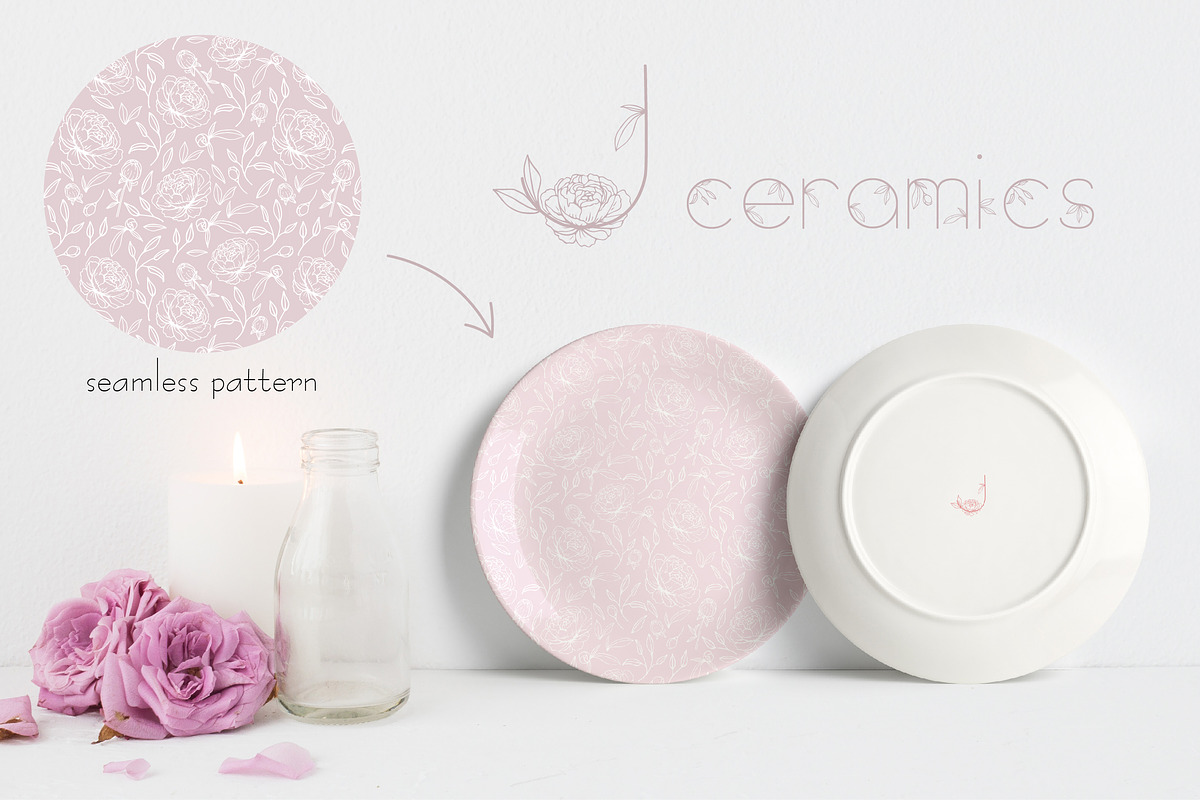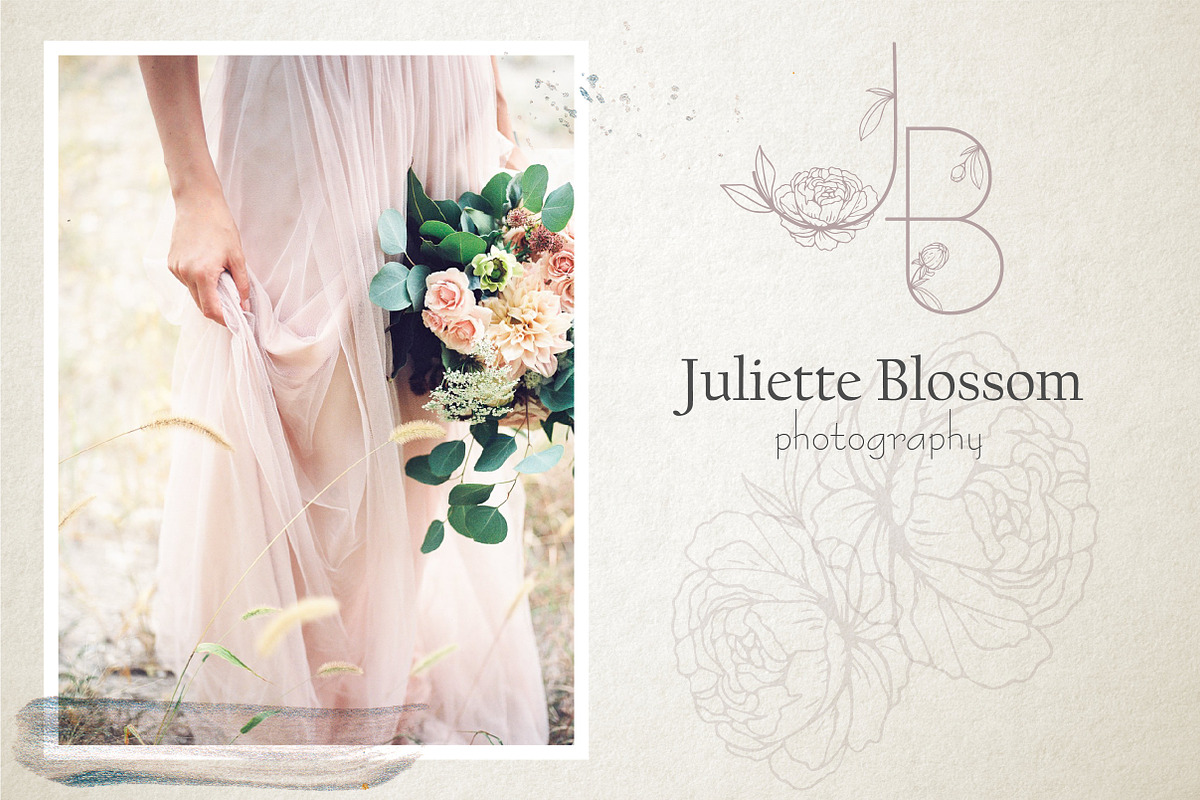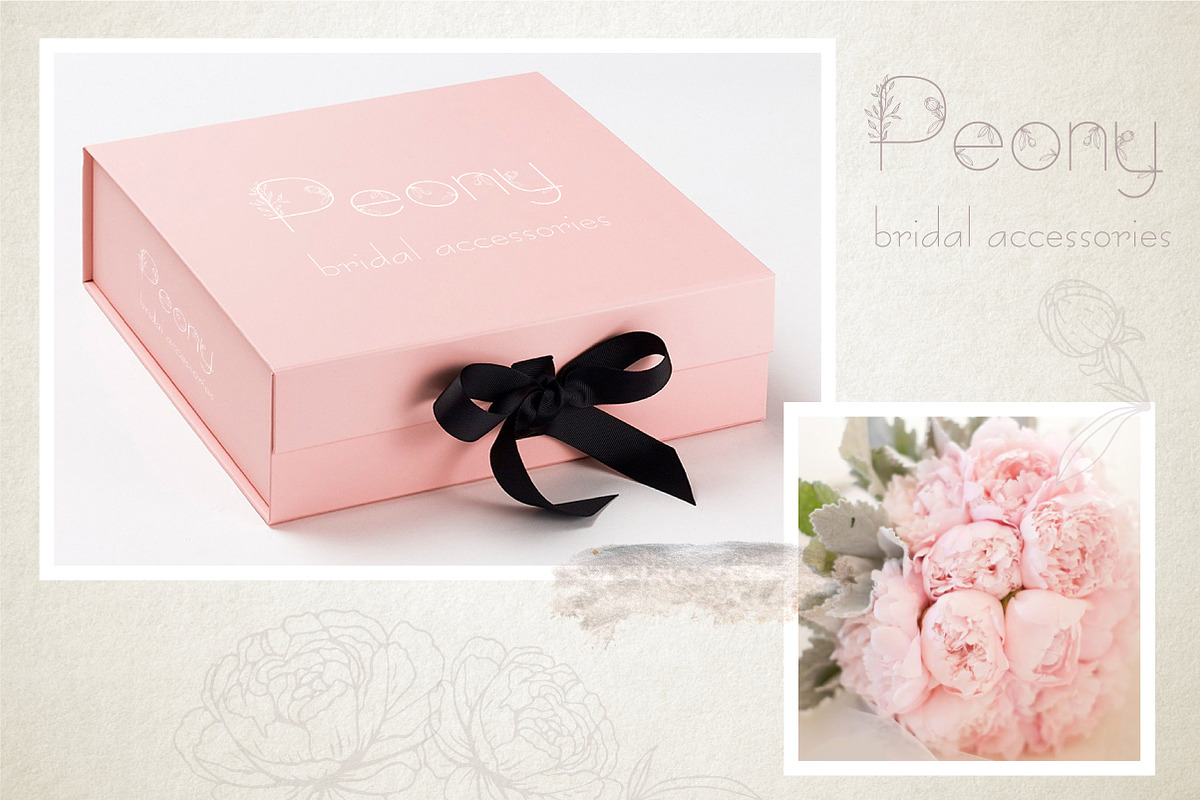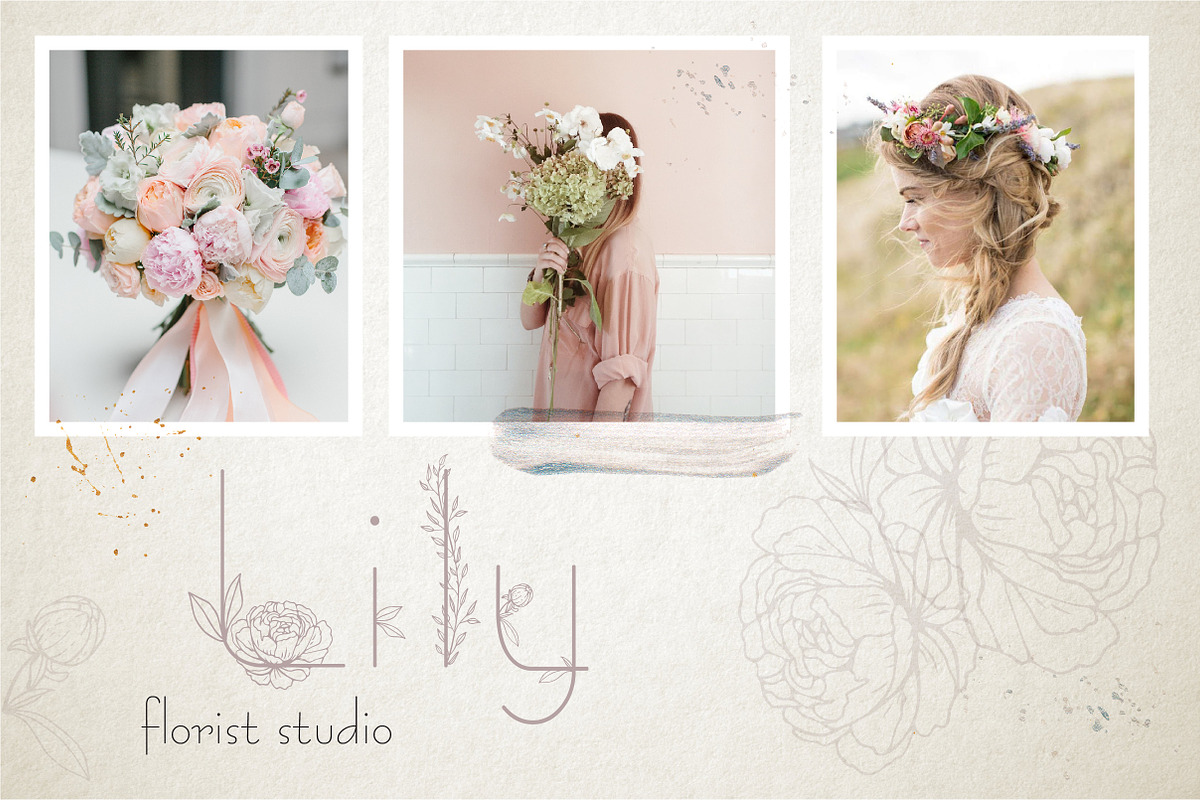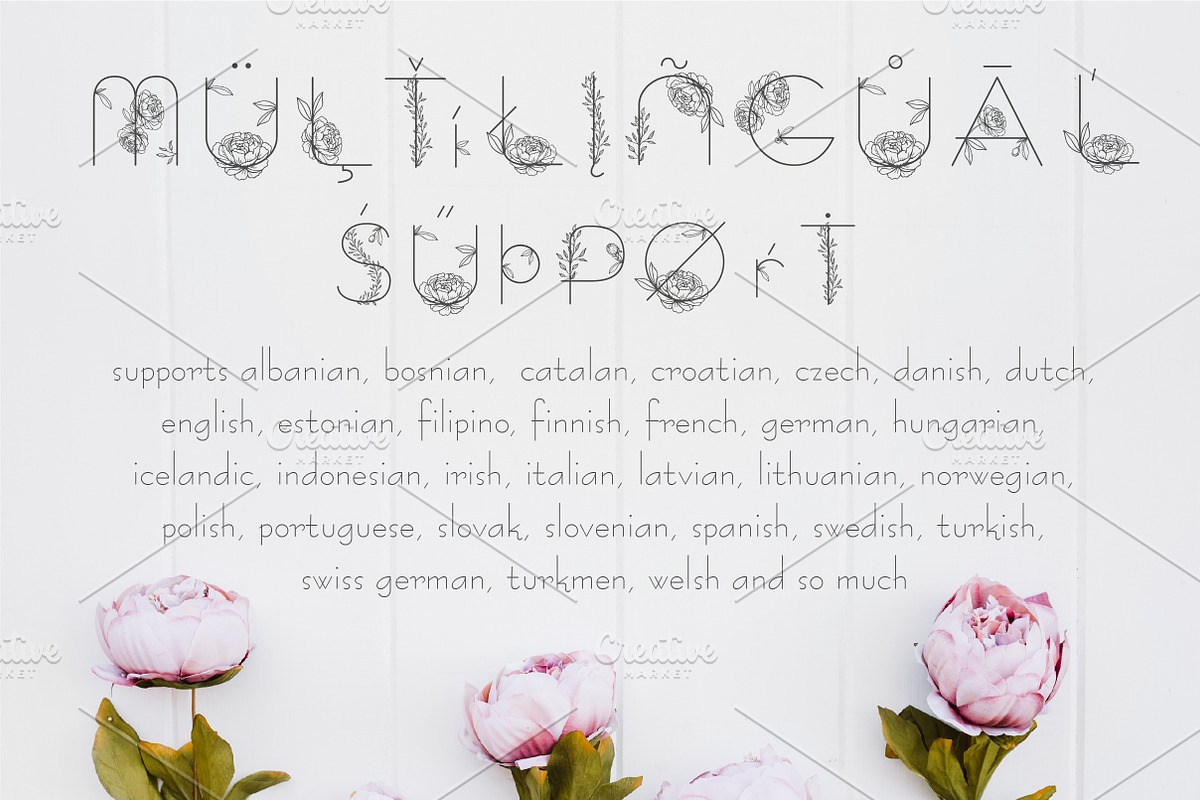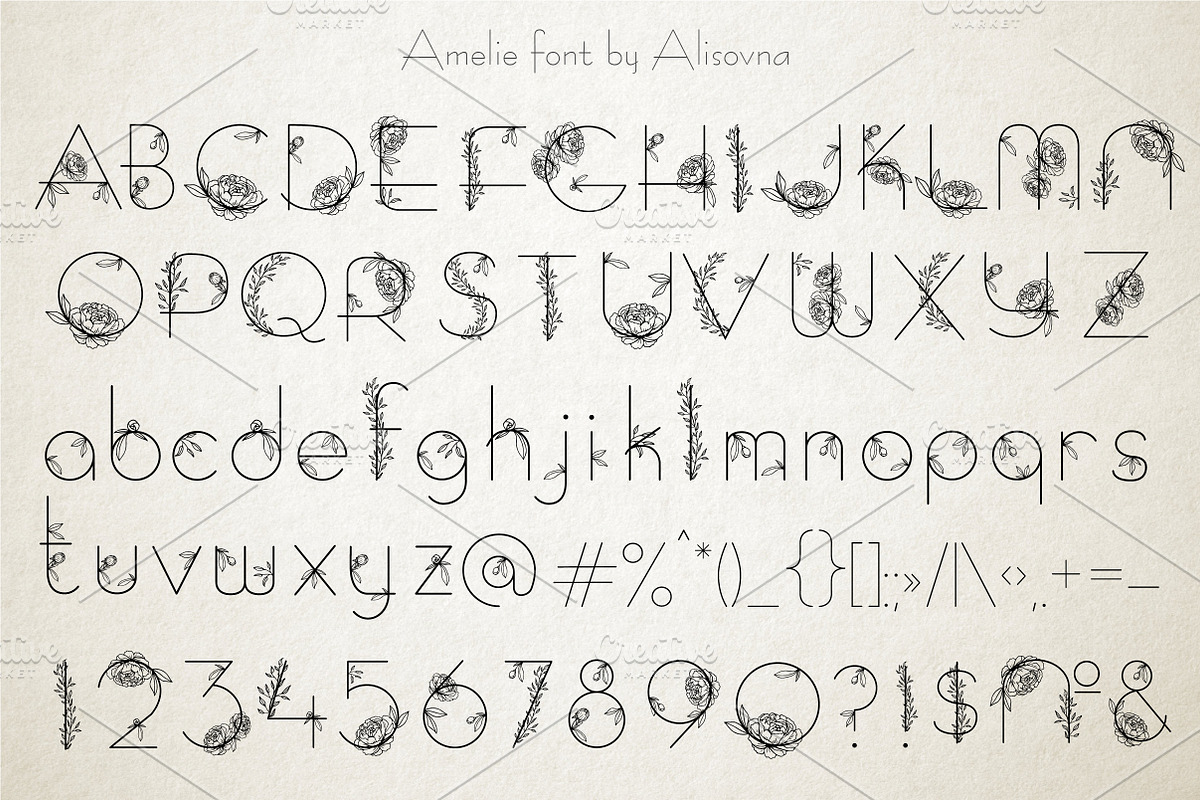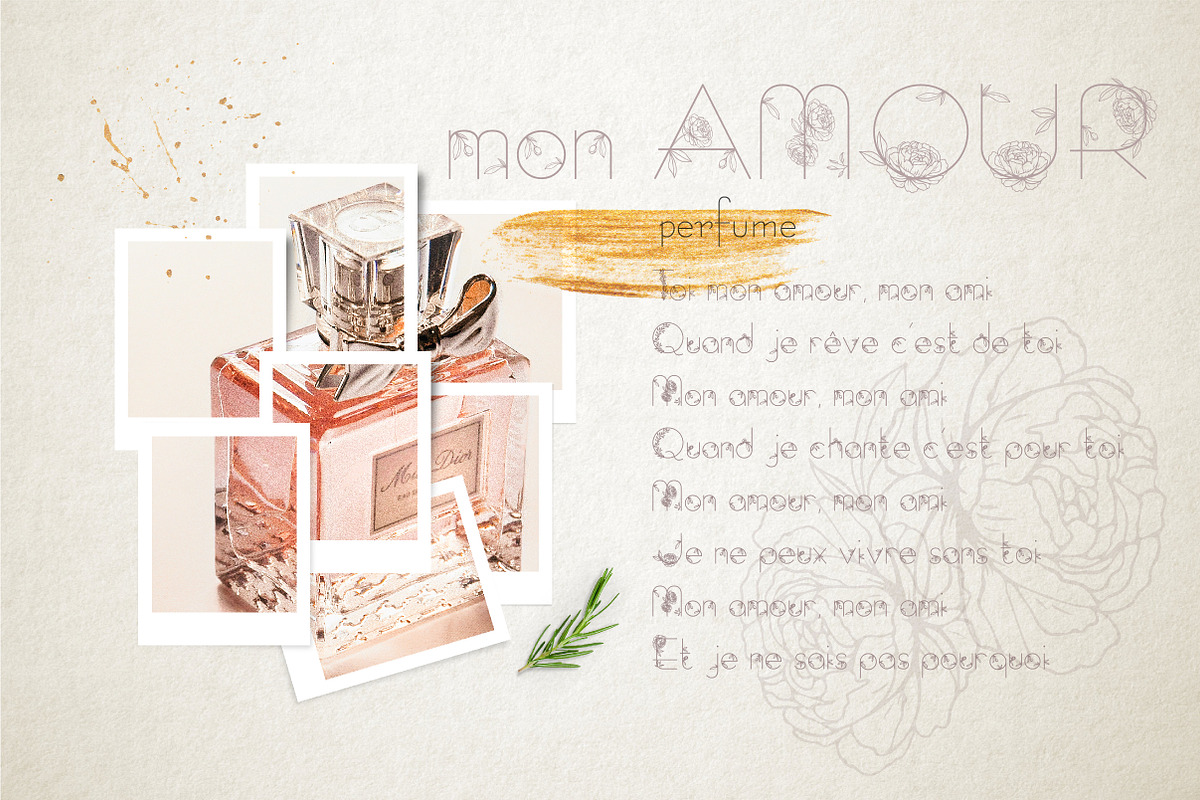
Amelie Floral Display Font
Amelie - romantic floral display font. It includes full set of lovely uppercase and lowercase letters, multilingual symbols, numerals, punctuation, accents; also gold and silver strokes, frames and letters, a big variety of individual elements and ready wedding cards design.
This collection of font and decorative elements are ideal for the creation of the corporate identity of your flowers shop or your wedding studio. Or if you need to make a design for journal or create a wedding invitation. Add this beautiful hand drawn frames, letters and florals to create a postcard. This pack can be used to create anything as you wish.
Font includes multilingual support: albanian, bosnian, catalan, croatian, czech, danish, dutch, english, estonian, filipino, finnish, french, german, hungarian, icelandic, indonesian, irish, italian, latvian, lithuanian, norwegian, polish, portuguese, slovak, slovenian, spanish, swedish, turkish, swiss german, turkmen, welsh.